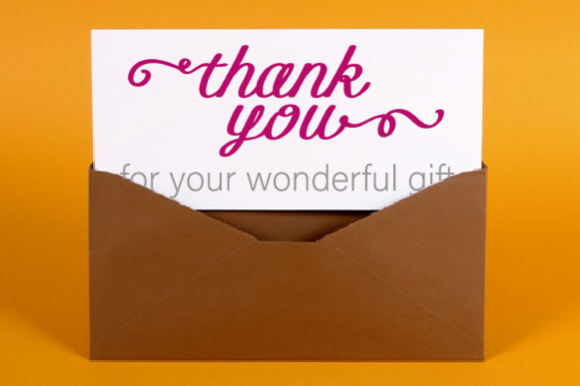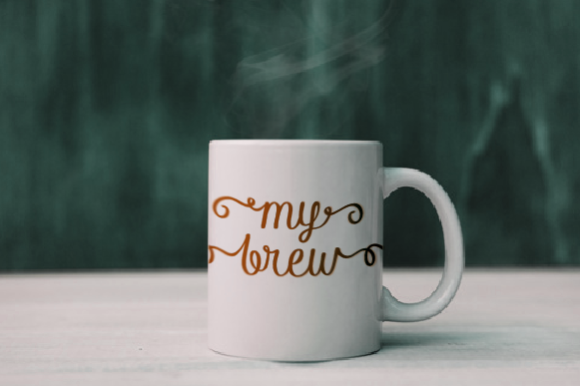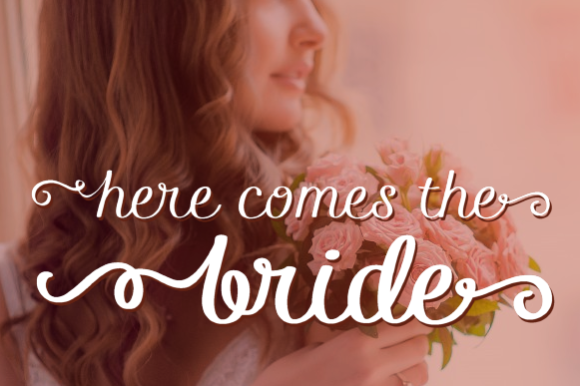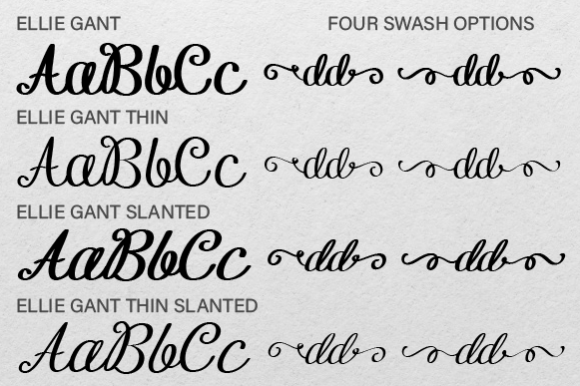
Introducing the Elegant Ellie Gant Family Font
Are you a designer or crafter looking for a beautiful script font that can elevate your creative projects? Look no further than the Ellie Gant Family Font. This stunning script font is perfect for a wide range of applications, from formal invitations to casual social media graphics. In this article, we’ll take a closer look at the Ellie Gant Family Font and explore its many features and uses.
A Beautiful Script Font with a Calligraphic Feel
The Ellie Gant Family Font is a gorgeous script font that strikes the perfect balance between formality and casualness. With its calligraphic feel, this font is great for adding a touch of elegance to any design project. Whether you’re creating a formal wedding invitation or a casual social media graphic, the Ellie Gant Family Font is sure to impress.
Four Versatile Fonts in One Family
The Ellie Gant Family Font is not just a single font, but a collection of four versatile fonts that can be used in a variety of contexts. The four fonts that make up the Ellie Gant Family are:
- Ellie Gant: The regular font with a beautiful, flowing script.
- Ellie Gant Thin: A thinner version of the regular font, perfect for adding a touch of elegance to your designs.
- Ellie Gant Slanted: A slanted version of the regular font, great for adding a bit of flair to your designs.
- Ellie Gant Thin Slanted: A thinner, slanted version of the regular font, perfect for creating beautiful, eye-catching headlines.
Swashes and Flourishes
One of the standout features of the Ellie Gant Family Font is its swashes and flourishes. Each of the four fonts comes with two beginning swashes and two ending swashes for the lowercase letters, giving you a wide range of creative possibilities. With these swashes and flourishes, you can add a touch of elegance and sophistication to your designs, making them truly stand out.
Endless Possibilities
With the Ellie Gant Family Font, the possibilities are truly endless. This elegant font can be used for a wide range of applications, including:
- Signs and displays
- Packaging and labeling
Why Choose the Ellie Gant Family Font?
So why choose the Ellie Gant Family Font for your design projects? Here are just a few reasons:
- Versatility: With four fonts in one family, you can use the Ellie Gant Family Font for a wide range of applications.
- Elegance: This beautiful script font is perfect for adding a touch of elegance and sophistication to your designs.
In conclusion, the Ellie Gant Family Font is a beautiful and versatile script font that is perfect for designers and crafters looking to add a touch of elegance to their creative projects. With its calligraphic feel, four versatile fonts, and swashes and flourishes, this font family is sure to impress. Whether you’re creating formal invitations or casual social media graphics, the Ellie Gant Family Font is a great choice.